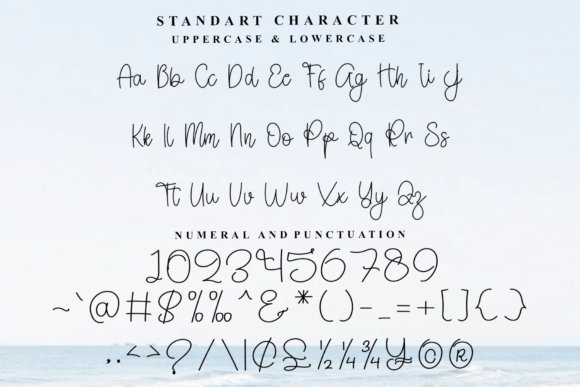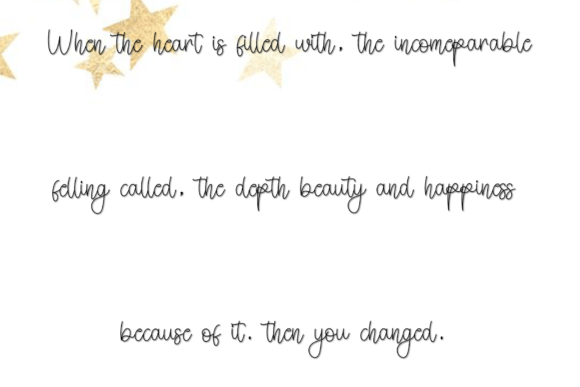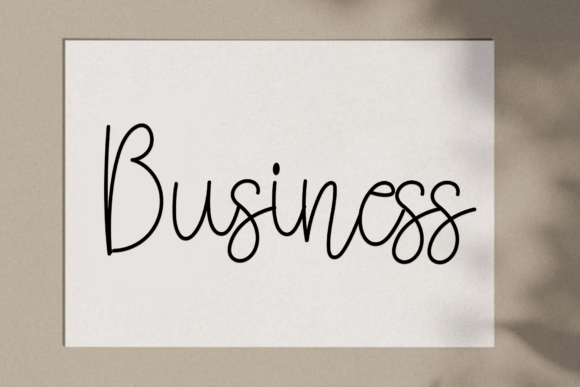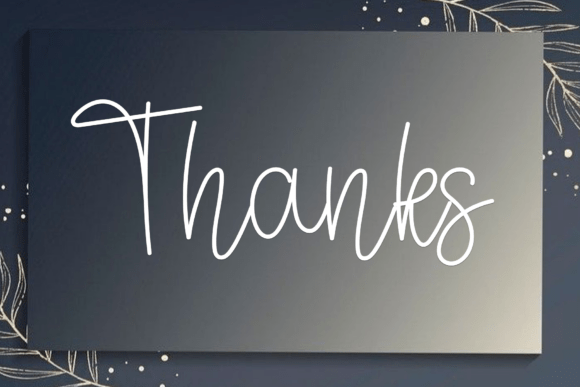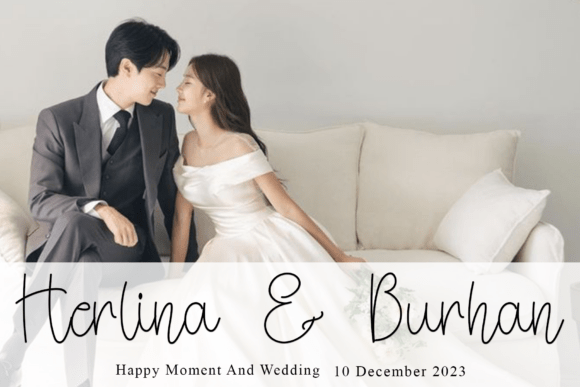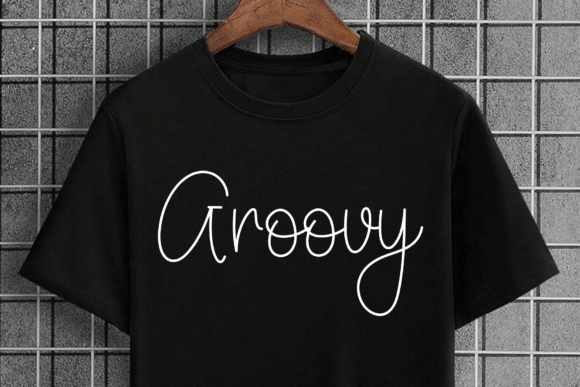
Introducing Geography Font: A Festive and Merry Typeface for the Holiday Season
As a designer or crafter, you’re likely always on the lookout for unique and captivating typography to elevate your projects. If you’re seeking a font that embodies the spirit of the holiday season, look no further than Geography Font. This delightful typeface is specifically designed to bring a touch of enchantment and nostalgia to your designs, making it perfect for greeting cards, gift tags, and holiday-themed projects.
A Festive and Whimsical Typeface
Geography Font is a decorative typeface that exudes a sense of festivity and merriment. Its whimsical flair and intricate details are sure to transport your audience to a magical winter wonderland. Whether you’re creating holiday-themed stationery, decorations, or digital content, this font is guaranteed to add a dash of cheer and personality to your words.
Geography Font is specifically designed with the holiday season in mind. Its playful and enchanting aesthetic makes it an ideal choice for a wide range of projects, including:
- Greeting cards: Create personalized and festive holiday cards that will delight your loved ones.
- Gift tags: Add a touch of elegance and whimsy to your gift tags, making them perfect for presents, stockings, and holiday treats.
- Holiday-themed projects: From invitations to decorations, this font is perfect for any project that requires a dash of holiday cheer.
Why Choose Geography Font?
So why choose Geography Font over other holiday-themed typefaces? Here are just a few reasons:
- Unique and captivating design: Geography Font boasts a distinctive and enchanting aesthetic that’s sure to set your designs apart.
- High-quality and versatile: This font is perfect for a wide range of projects, from digital content to print materials.
Tips for Using Geography Font
To get the most out of Geography Font, here are a few tips:
- Experiment with sizes and colors: Don’t be afraid to play around with different sizes and colors to find the perfect combination for your design.
- Pair with complementary fonts: Geography Font pairs beautifully with other festive and elegant typefaces, so don’t be afraid to experiment with different combinations.